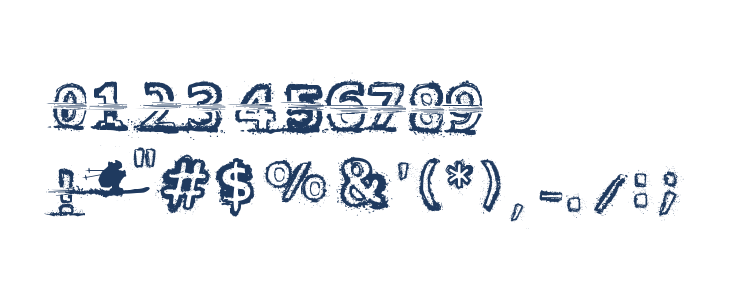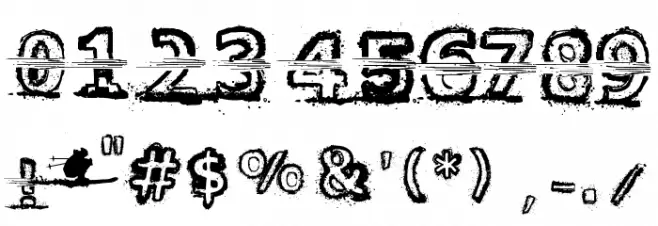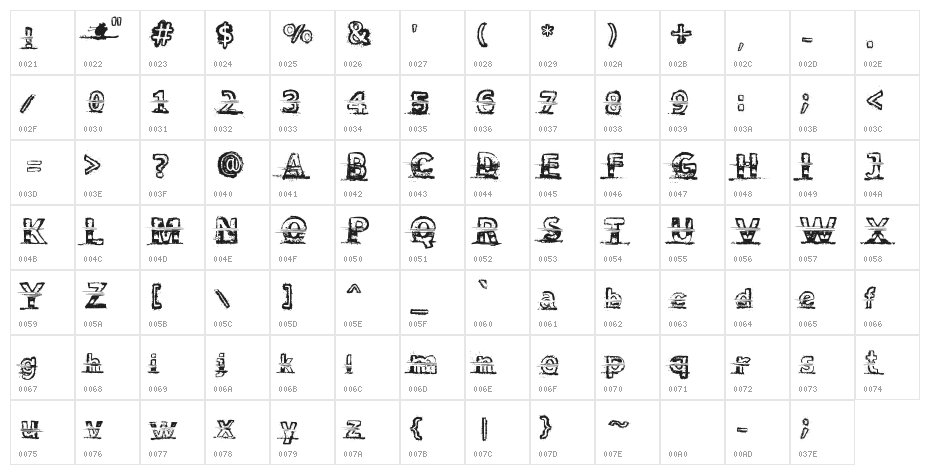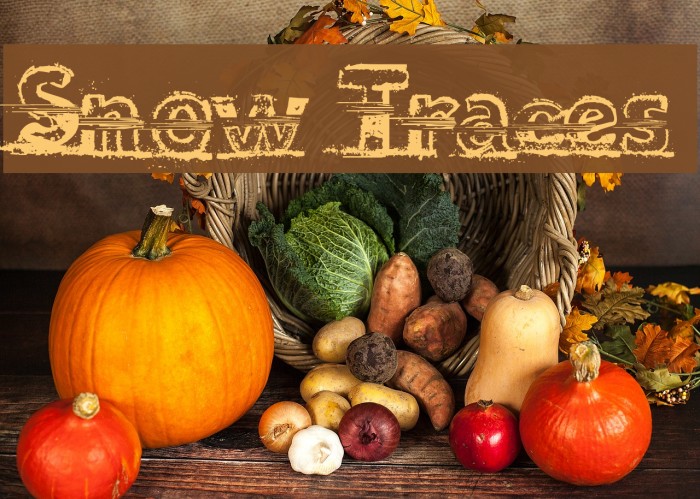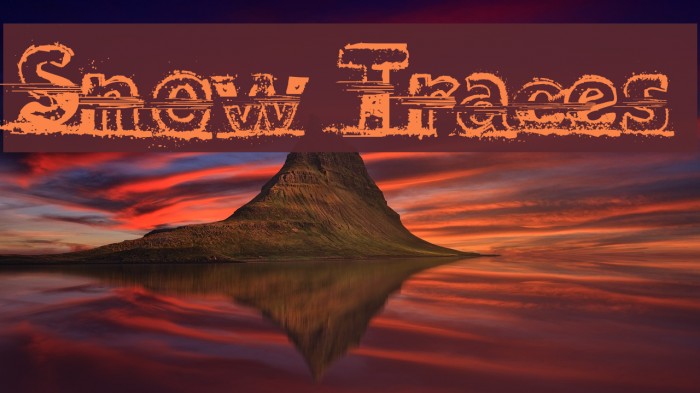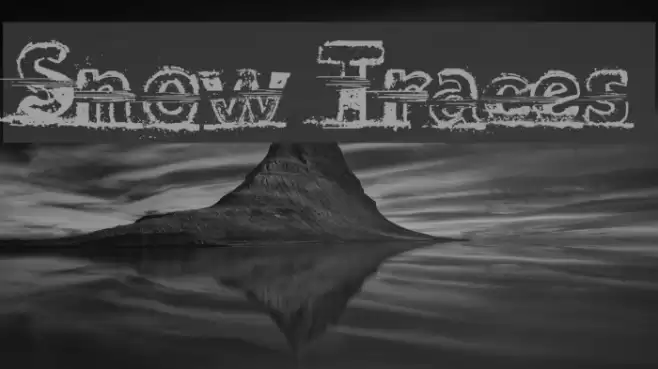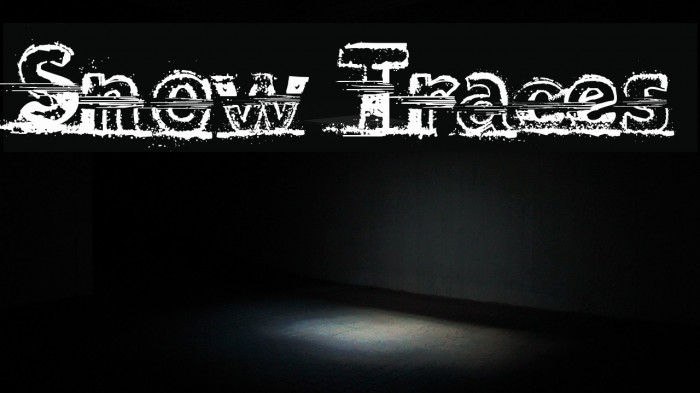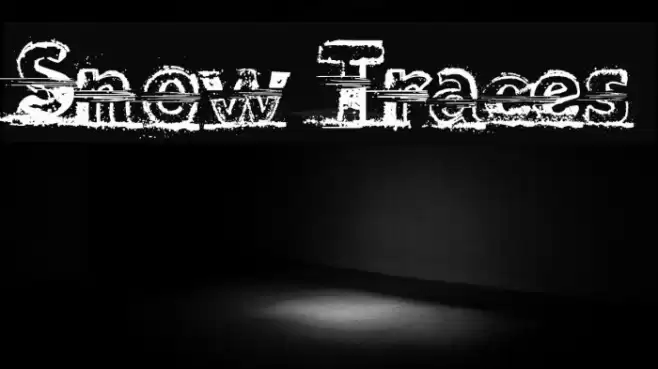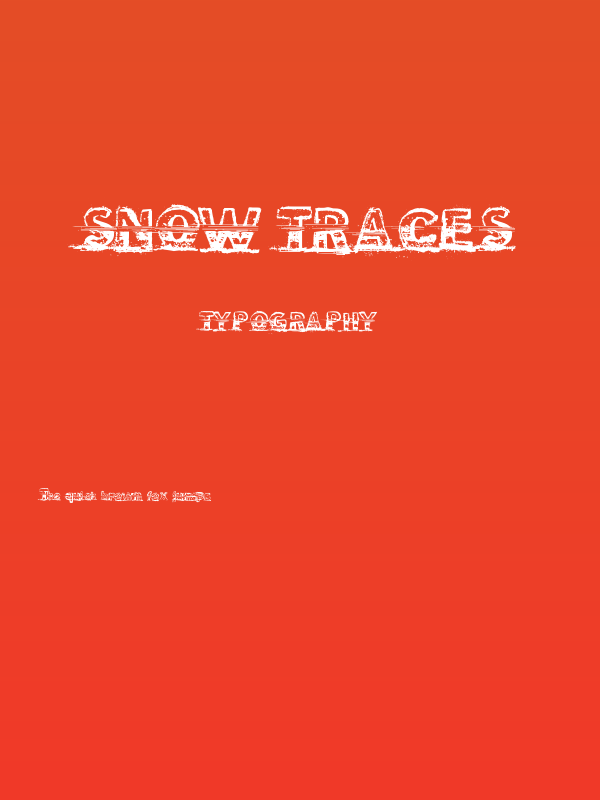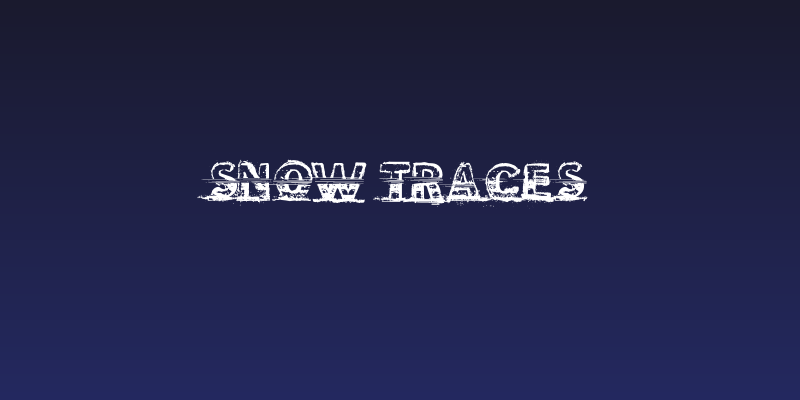
Snow Traces Font
Snow Traces Description
This font features a distressed, weathered appearance, reminiscent of letters etched in snow or ice. The characters have a bold, blocky structure with uneven edges and a textured surface that gives a sense of depth and dimension. The uppercase and lowercase letters maintain a consistent style, with a rugged and organic feel. Numbers and special characters follow the same design, ensuring uniformity across all glyphs. This font's unique style evokes a sense of cold, wintry landscapes, making it ideal for projects that require a touch of nature or a rustic aesthetic.
| Proposed Projects | Ideal for winter-themed designs, outdoor adventure branding, rustic invitations, and nature-inspired posters. |